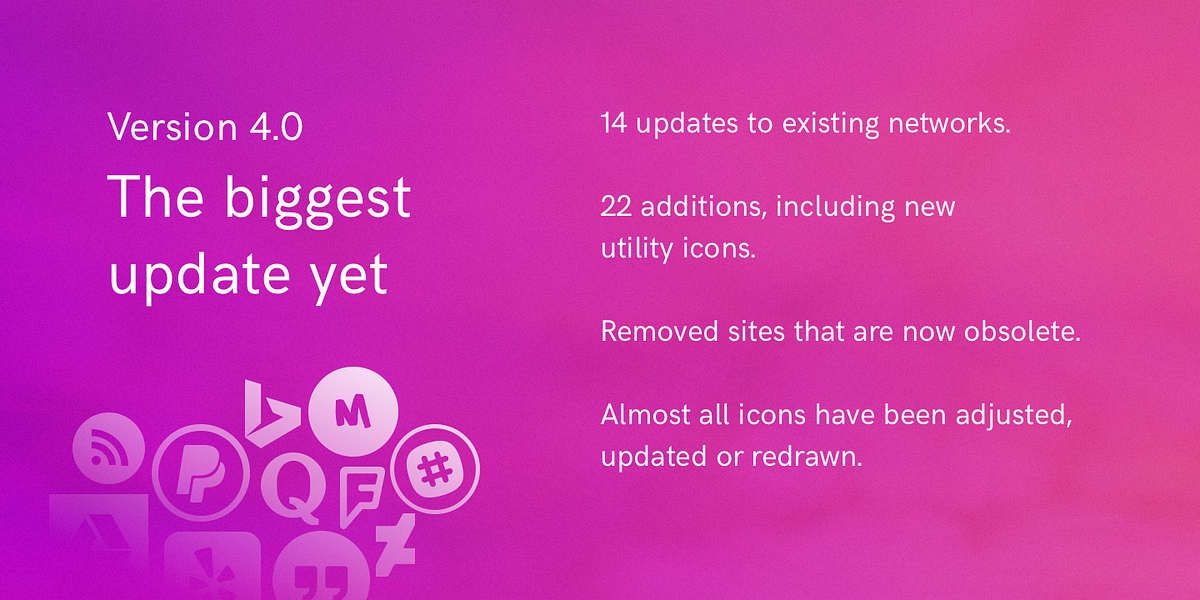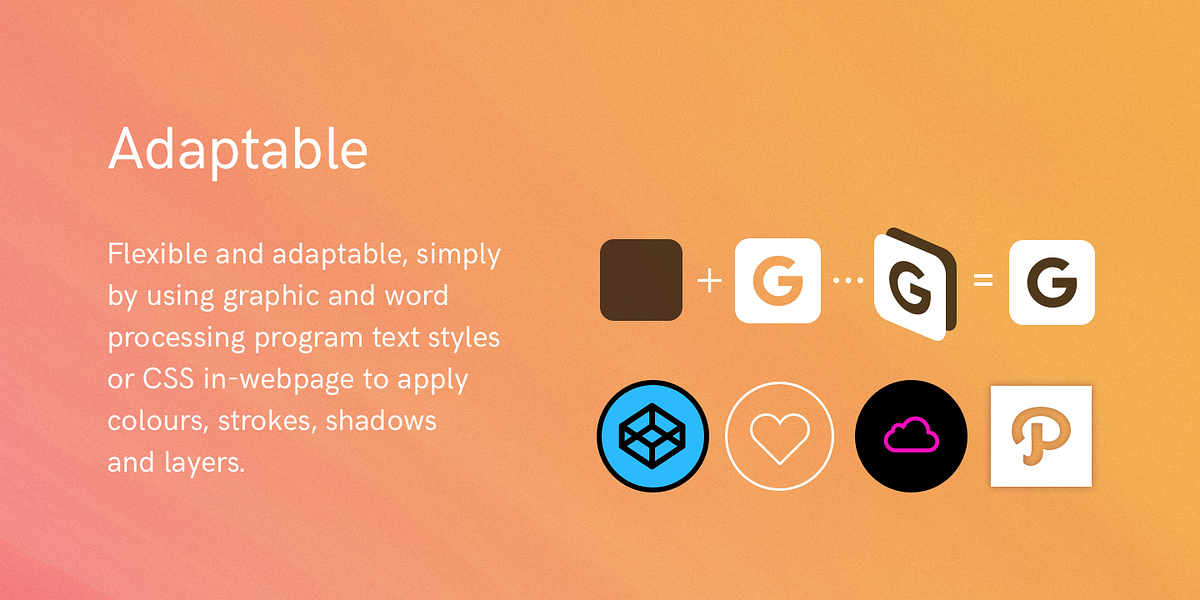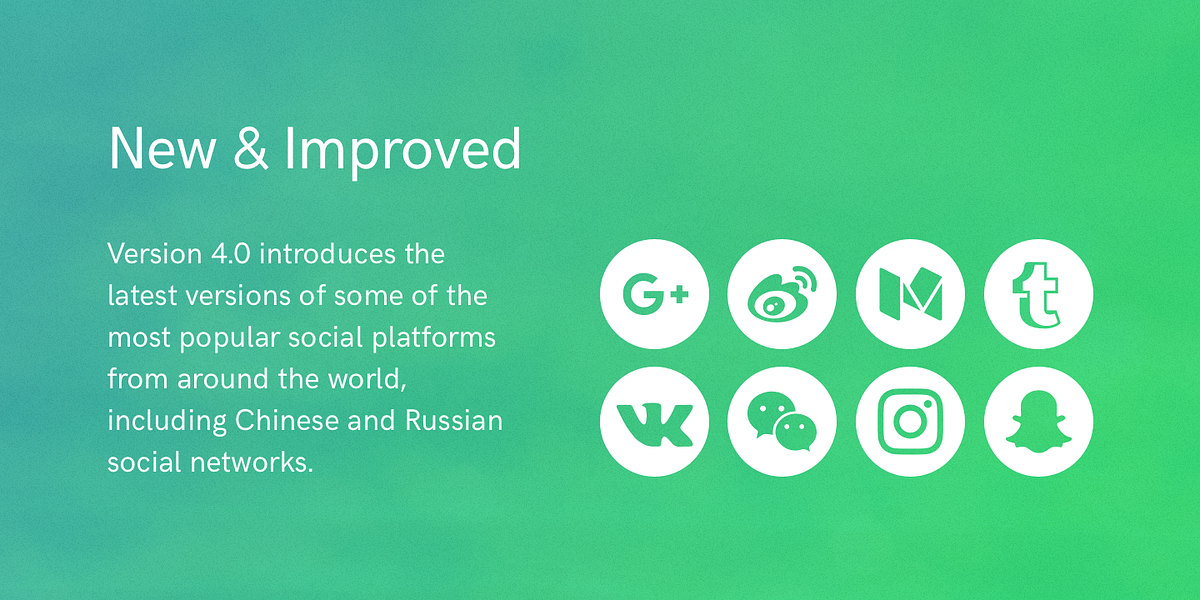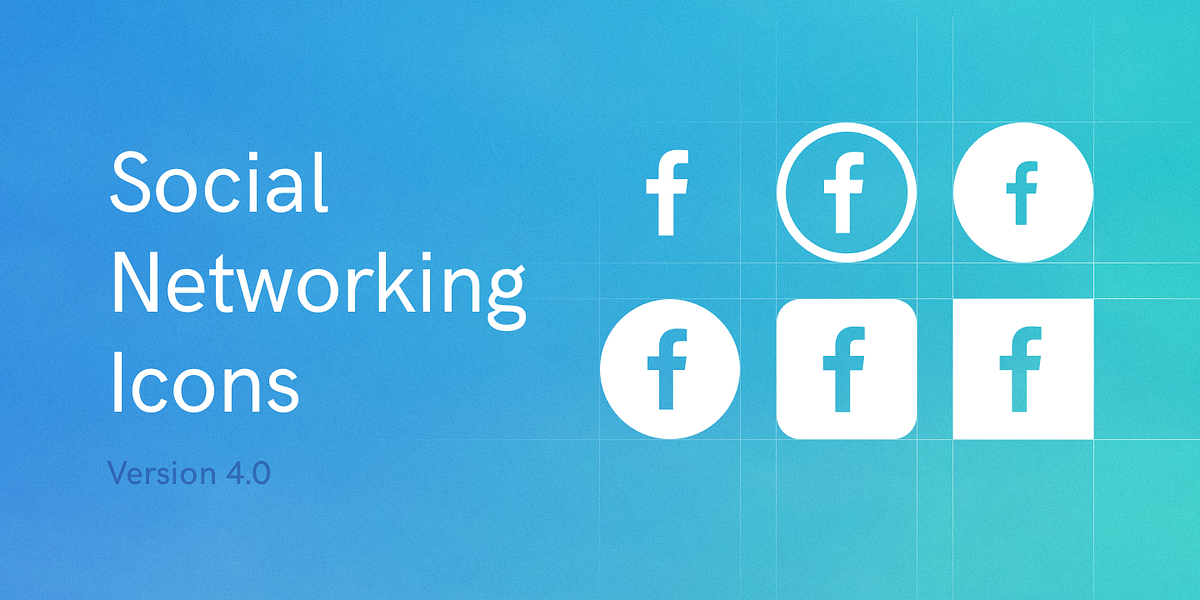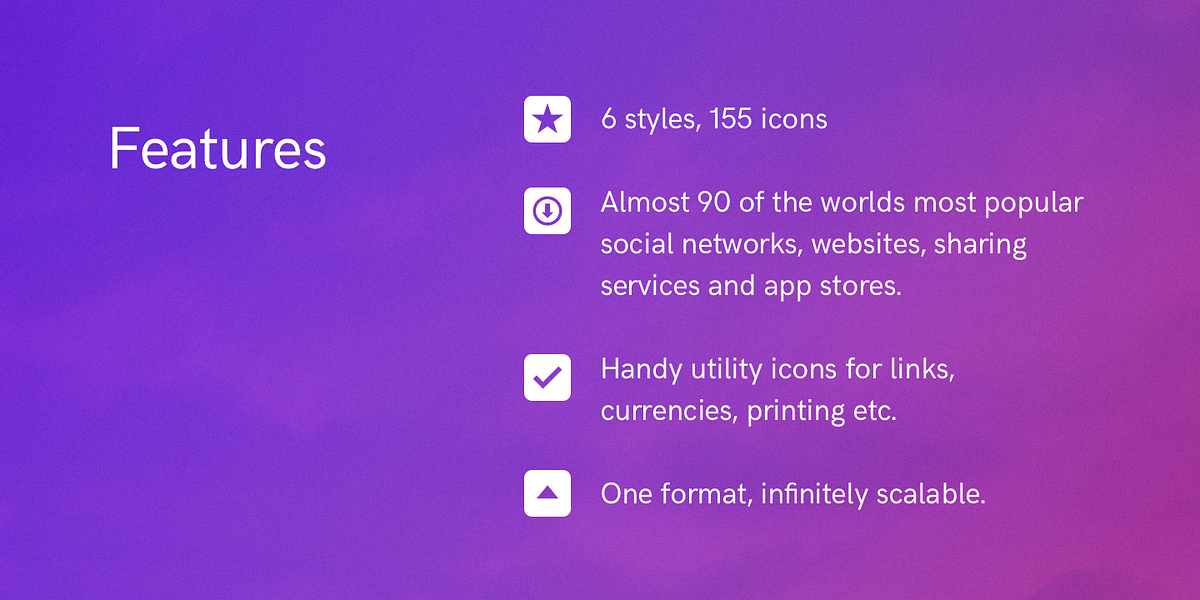
Social Networking Icons
The Social Networking Icons font is a dingbat font designed specifically for displaying social media icons. It's suitable for both web and print applications and comes with a PDF guide and an interactive symbol sheet for reference.